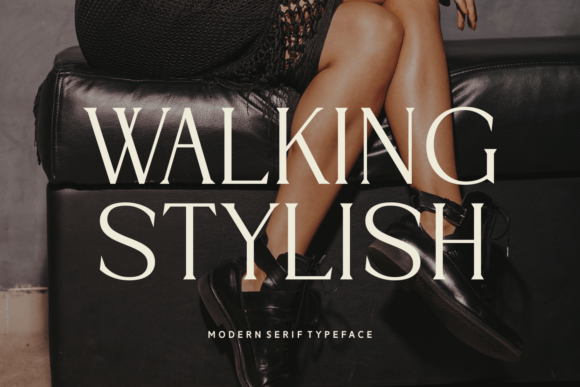
Walking Stylish Font: Elevate Your Design with Modern Sophistication
When it comes to creating visually stunning designs, the right typography can make all the difference. Introducing the Walking Stylish font, a modern serif typeface that seamlessly blends clean sophistication with editorial flair. This versatile font is perfect for fashion branding, magazine layouts, and high-end product packaging, allowing designers to add a confident, stylish edge to their projects.
The Characteristics of Walking Stylish Font
Walking Stylish is characterized by its sharp serifs and balanced structure, which work in harmony to create a sleek and elegant rhythm. The font’s modern serif design ensures that it remains clean and legible, even at smaller sizes, making it ideal for body text and headlines alike.
One of the standout features of Walking Stylish is its ability to convey a sense of sophistication and elegance. The font’s sharp serifs add a touch of refinement, while its balanced structure ensures that the text remains easy to read. This makes it perfect for designs that require a high level of professionalism, such as fashion magazines, luxury product packaging, and high-end brand identities.
Key Features of Walking Stylish Font
- Modern Serif Design: Walking Stylish features a modern serif design that is both clean and elegant.
- Sharp Serifs: The font’s sharp serifs add a touch of sophistication and refinement to any design.
- Balanced Structure: The font’s balanced structure ensures that the text remains easy to read, even at smaller sizes.
- Sleek Form: Walking Stylish has a sleek form that adds a confident, stylish edge to any design.
- Elegant Rhythm: The font’s elegant rhythm makes it perfect for designs that require a high level of sophistication.
Use Cases for Walking Stylish Font
Walking Stylish is a versatile font that can be used in a variety of design projects. Here are some of the most popular use cases:
- Fashion Branding: Walking Stylish is perfect for fashion branding, adding a touch of sophistication and elegance to any design.
- Magazine Layouts: The font’s modern serif design and elegant rhythm make it ideal for magazine layouts, particularly those in the fashion and lifestyle industries.
- High-End Product Packaging: Walking Stylish is perfect for high-end product packaging, adding a touch of luxury and sophistication to any design.
- Editorial Design: The font’s elegant rhythm and sharp serifs make it perfect for editorial design, particularly for designs that require a high level of sophistication.
Benefits of Using Walking Stylish Font
There are several benefits to using Walking Stylish in your design projects. Here are some of the most significant advantages:
- Unique and Memorable: Walking Stylish is a unique and memorable font that can help your design stand out from the crowd.
- Versatile: The font’s modern serif design and elegant rhythm make it perfect for a wide range of design projects.
- Elegant and Sophisticated: Walking Stylish adds a touch of elegance and sophistication to any design, making it perfect for high-end brands and luxury products.
- Easy to Read: The font’s balanced structure and sharp serifs ensure that the text remains easy to read, even at smaller sizes.
Tips for Using Walking Stylish Font
Here are some tips for using Walking Stylish in your design projects:
- Use it for Headlines and Body Text: Walking Stylish is perfect for both headlines and body text, making it a versatile font for a wide range of design projects.
- Experiment with Font Sizes: The font’s modern serif design and elegant rhythm make it perfect for use at a variety of font sizes.
- Pair it with Other Fonts: Walking Stylish can be paired with other fonts to create a unique and memorable design.
- Use it for Digital and Print Designs: The font’s clean and elegant design make it perfect for both digital and print designs.
Walking Stylish is a modern serif typeface that blends clean sophistication with editorial flair. Its sharp serifs, balanced structure, and elegant rhythm make it perfect for fashion branding, magazine layouts, and high-end product packaging. With its versatility, unique design, and ease of use, Walking Stylish is an excellent choice for designers looking to add a confident, stylish edge to their projects.
FAQs About Walking Stylish Font
- What is Walking Stylish Font? Walking Stylish is a modern serif typeface that blends clean sophistication with editorial flair.
- What is Walking Stylish Font used for? Walking Stylish is perfect for fashion branding, magazine layouts, high-end product packaging, and editorial design.
- Is Walking Stylish Font easy to read? Yes, Walking Stylish is easy to read, even at smaller sizes, thanks to its balanced structure and sharp serifs.